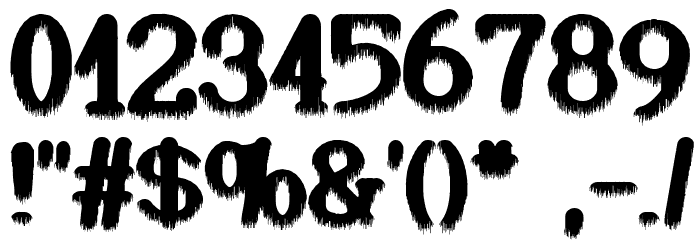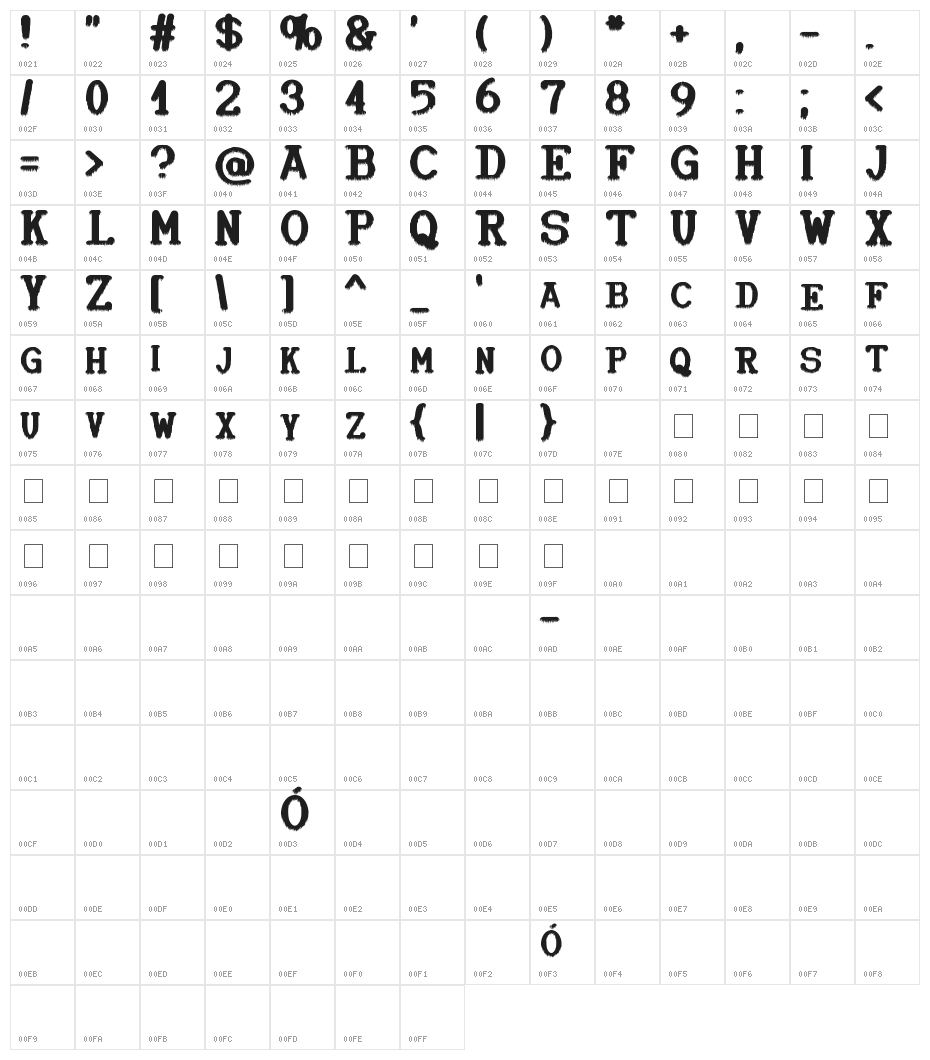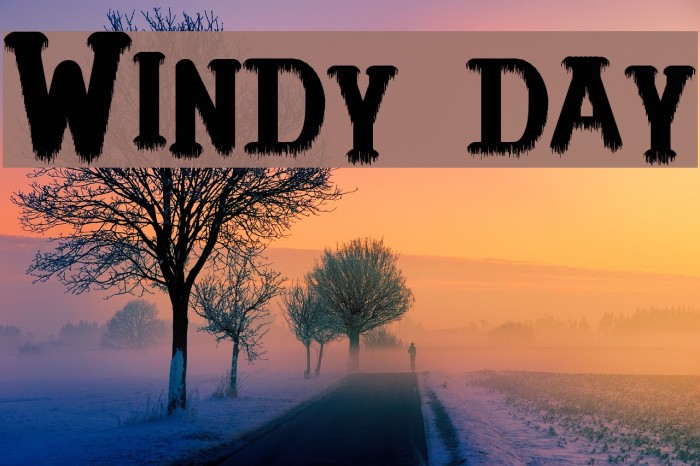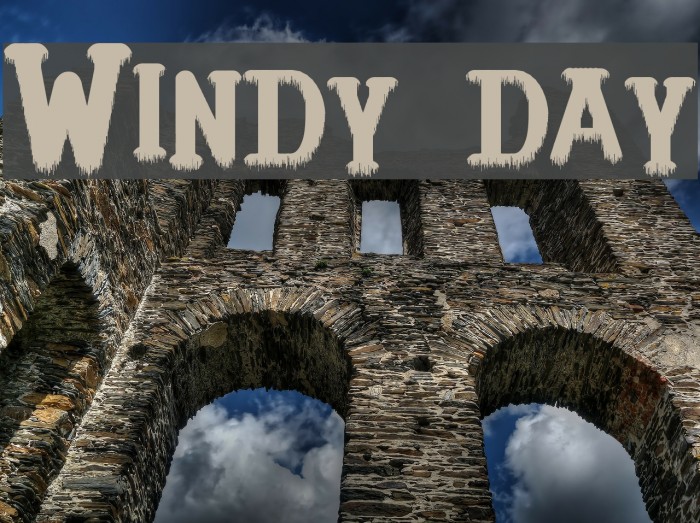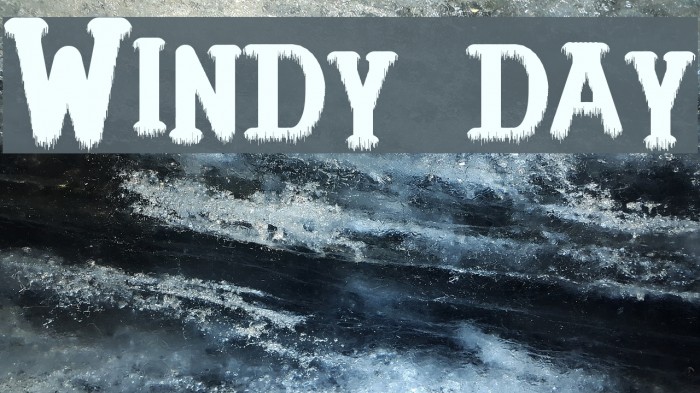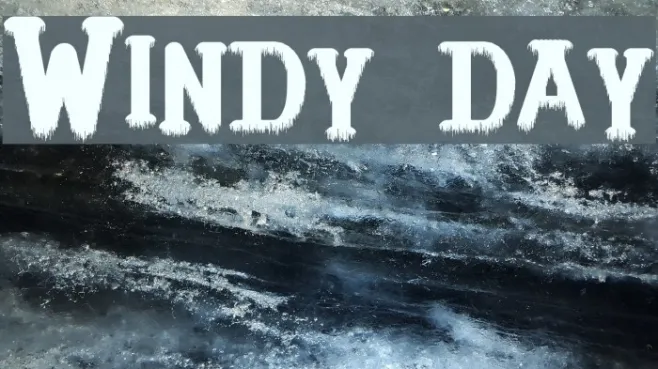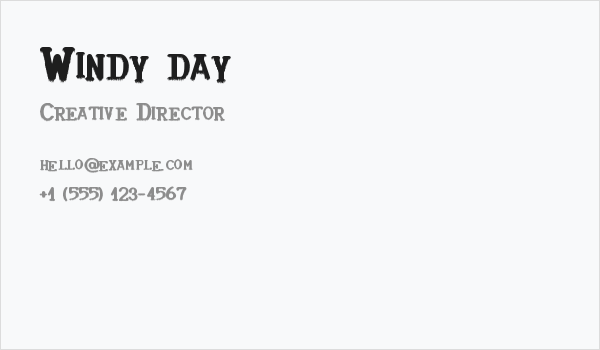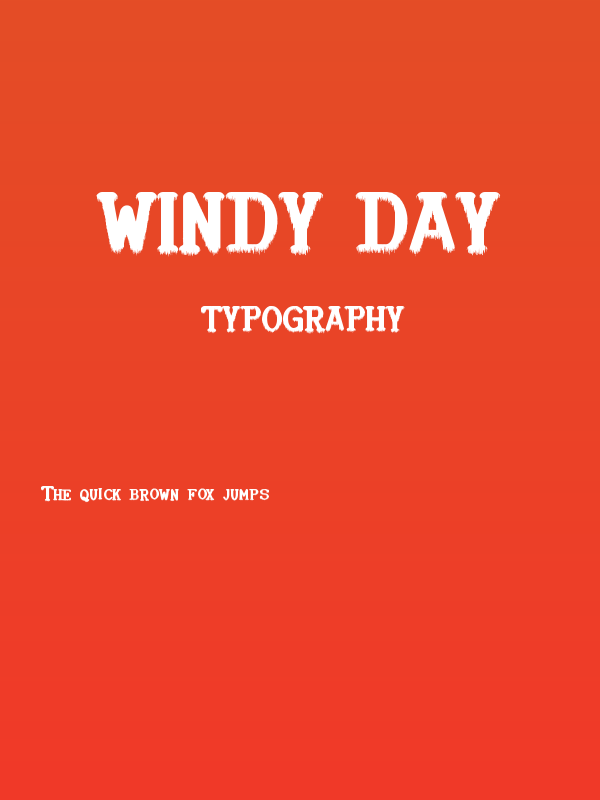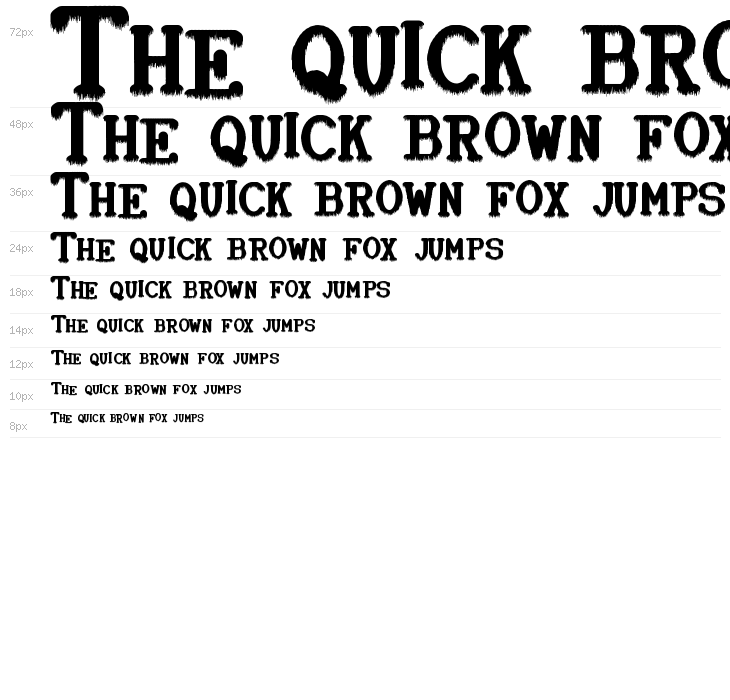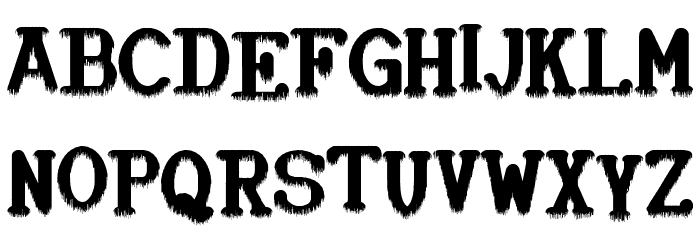
Windy day Font
Windy day Description
This font features a bold and dynamic design with a unique, wind-swept appearance. The letters have a playful and energetic style, characterized by jagged edges and a sense of movement, as if they are being blown by a strong breeze. The uppercase and lowercase letters maintain a consistent style, with the numbers and special characters also reflecting the same whimsical and lively aesthetic. This font is highly decorative, making it stand out with its distinctive and eye-catching look.
| Proposed Projects | Ideal for projects that require a fun and energetic vibe, such as children's book covers, posters, event invitations, or branding for creative businesses. |